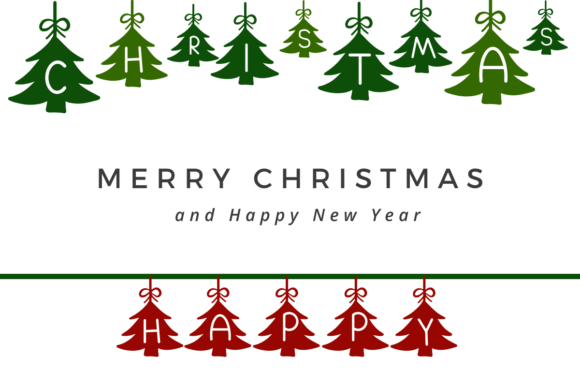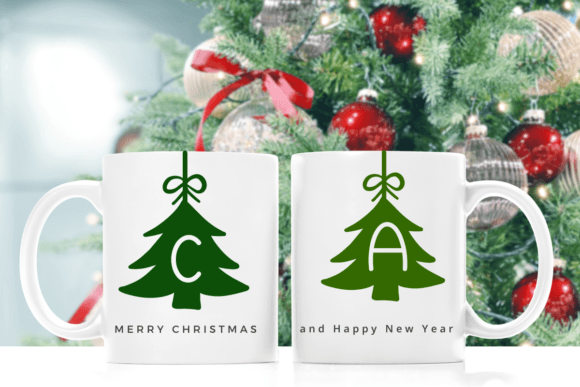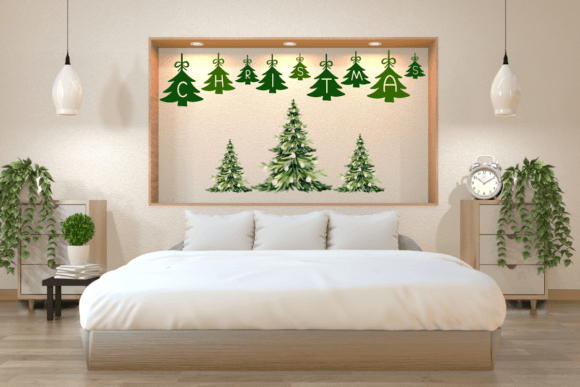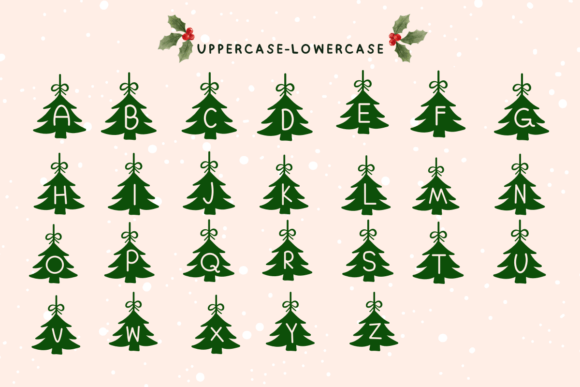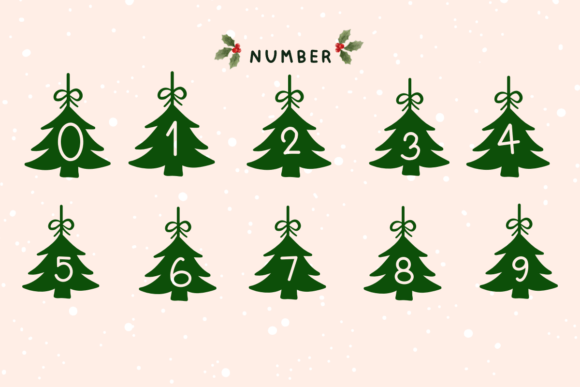
The Magic of ‘Decorated Christmas Tree’ Font: Elevate Your Designs with Whimsy and Wonder
I’ll never forget the time I was working on a Christmas-themed project for a client, and I just couldn’t find the right font to capture the festive spirit. The design was supposed to be playful, fun, and eye-catching, but every font I tried seemed either too dull or too over-the-top. That’s when I stumbled upon ‘Decorated Christmas Tree’, a captivating decorative font that completely transformed my design. In this article, I’ll share my experience with this amazing font, its features, and how you can use it to take your designs to the next level.
A Personal Review: What I Love About ‘Decorated Christmas Tree’
Here’s what makes ‘Decorated Christmas Tree’ a standout font:
- ✨ Unique and playful design: The font’s decorative elements, such as the Christmas tree-inspired glyphs, add a touch of whimsy to any design.
- ✅ Versatility: Despite its name, ‘Decorated Christmas Tree’ can be used for a wide range of design projects, from festive holiday designs to everyday creative endeavors.
- 🎉 Excellent for social media posts: The font’s eye-catching design makes it perfect for creating engaging social media posts that will stand out in crowded feeds.
While ‘Decorated Christmas Tree’ is an amazing font, there are a few things to keep in mind:
- 🤔 Some characters may require manual kerning: As with any decorative font, you may need to adjust the kerning between certain characters to achieve optimal results.
- ⚠️ May not be suitable for body text: Due to its decorative nature, ‘Decorated Christmas Tree’ is best used for headlines, titles, or short phrases rather than large blocks of text.
The Story Behind ‘Decorated Christmas Tree’
‘Decorated Christmas Tree’ was inspired by the magic of the holiday season. The font’s creator wanted to capture the whimsy and wonder of Christmas trees, snowflakes, and other festive elements in a unique and playful way. The result is a font that’s both fun and elegant, perfect for adding a touch of holiday cheer to any design.
| Font Name | Decorated Christmas Tree Font |
| Author | Bee piyanuch |
| What type of designs is ‘Decorated Christmas Tree’ best suited for? | ‘Decorated Christmas Tree’ is perfect for festive holiday designs, social media posts, greeting cards, and other creative projects that require a touch of whimsy and wonder. |